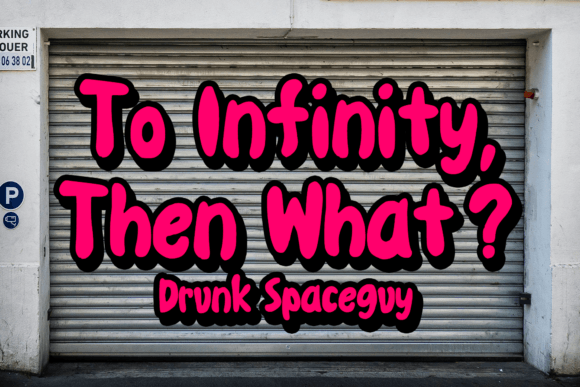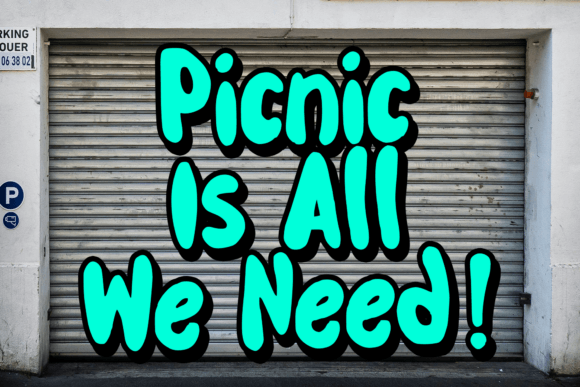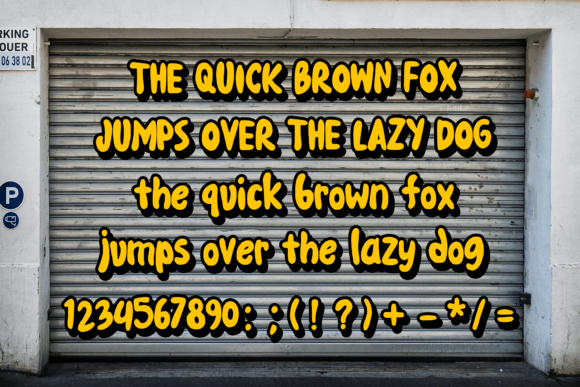
Get Ready to Pop Your Designs with the Ultimate Bubble Street Font
Have you ever been in the middle of a creative project, and suddenly, a spark of inspiration hits you? Maybe it’s a bold color palette, a quirky illustration, or a handwritten font that makes your design truly stand out. For designers, those moments of magic are what make all the hard work worth it.
Enter the Bubble Street Font, a playful, handwritten font that’s sure to bring a smile to your face. Inspired by the spontaneous curves of street art and graffiti, this font is the perfect addition to any design project. Whether you’re creating stickers, t-shirt designs, or magazine covers, the Bubble Street Font will add a super cool touch that elevates your work to the next level.
With its versatility and fun, carefree vibe, the Bubble Street Font is a valuable asset for any designer looking to add some personality to their projects.
Bubble Street Font Key Features
- Unique Characteristics: Distinctive bubble-like letterforms, playful and whimsical feel, ideal for creative and informal designs
- Font Style: Casual, Display, Script
Bubble Street Font Review
Overall, I was quite excited to dive into the Bubble Street Font, but my experience was a mix of delightful moments and frustrating limitations. ✨
- 👍 Unique Design: The Bubble Street Font has a charming, playful vibe that sets it apart from more traditional fonts.
- 👍 Versatility: It’s suitable for a wide range of projects, from children’s books to fashion brands.
- 👍 Customization Options: The font includes various style and weight options to help you achieve the perfect look.
- ⚠️ Readability Issues: In certain contexts, the font can be difficult to read, particularly at smaller sizes or in complex text layouts.
- ⚠️ Limited Legibility: The bubbly design can make it hard to distinguish between similar letters, leading to potential errors.
While the Bubble Street Font has its strengths, its limitations may make it less suitable for projects where clarity and readability are paramount. However, if you’re looking for a unique, eye-catching font for a specific context, it might be worth exploring further.
To get the most out of the Bubble Street Font, try using it in combination with other playful design elements, such as illustrations and graphics. You can also experiment with different font sizes and colors to create a visually appealing design.
The Bubble Street Font is perfect for:
- Children’s books and educational materials
- Advertising and promotional materials